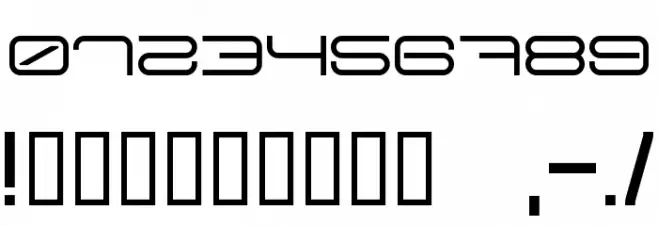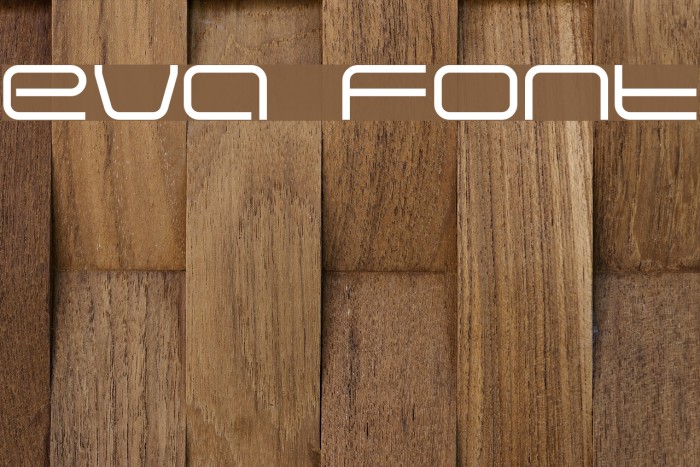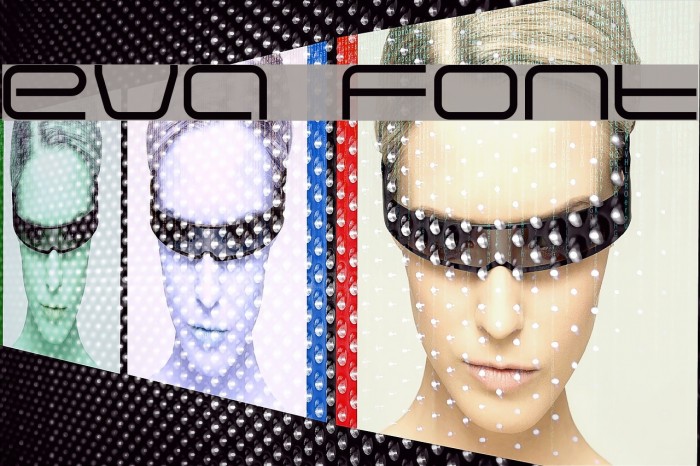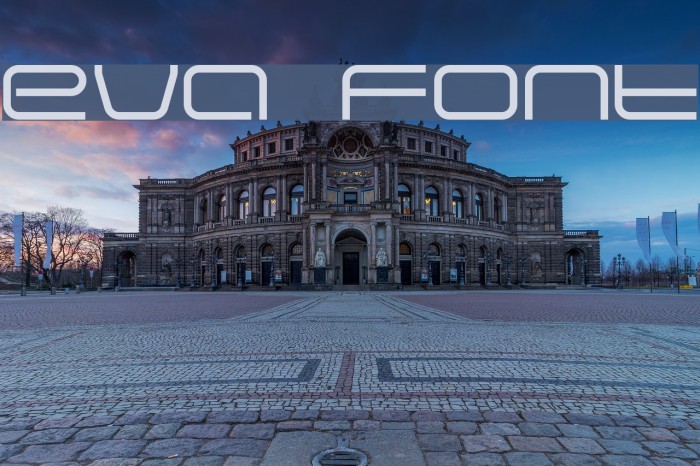
Eva Font
Eva Description
This font features a modern, geometric design with a futuristic feel. The characters are constructed with clean, straight lines and rounded corners, giving it a sleek and minimalistic appearance. The uppercase and lowercase letters maintain a consistent style, with a uniform height and width that enhances readability. The numbers and special characters are designed to match the overall aesthetic, ensuring a cohesive look across all text elements. This font is ideal for projects that require a contemporary and technological vibe, such as digital interfaces, tech branding, or sci-fi themed designs.
A modern, geometric font with a futuristic and minimalistic design from Futuristic fonts.
- Proposed Projects: Ideal for digital interfaces, tech branding, sci-fi themes, and modern advertising.
- Overall Style: Futuristic and minimalistic
- Use Case: Headlines, Logos, Digital interfaces